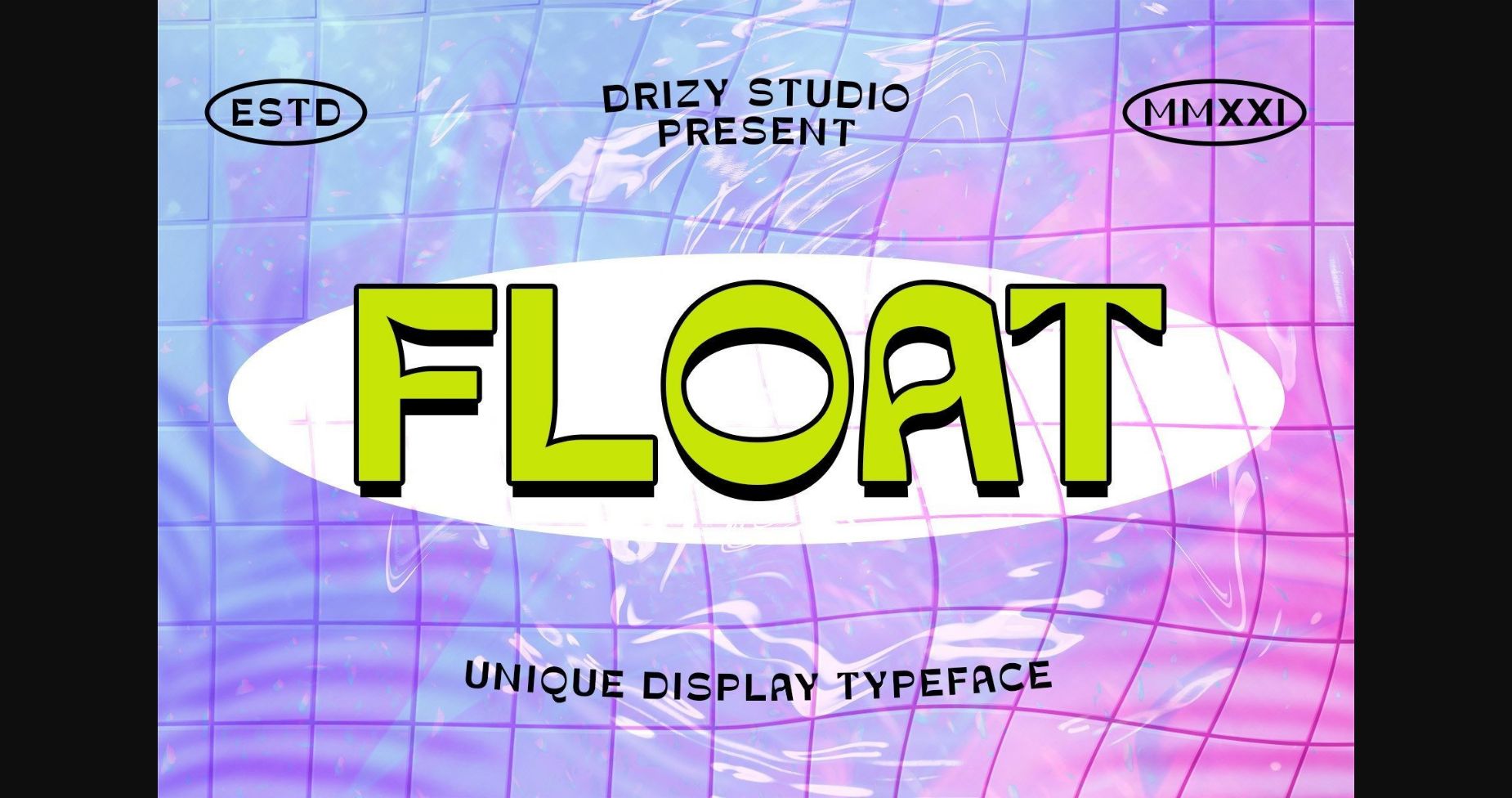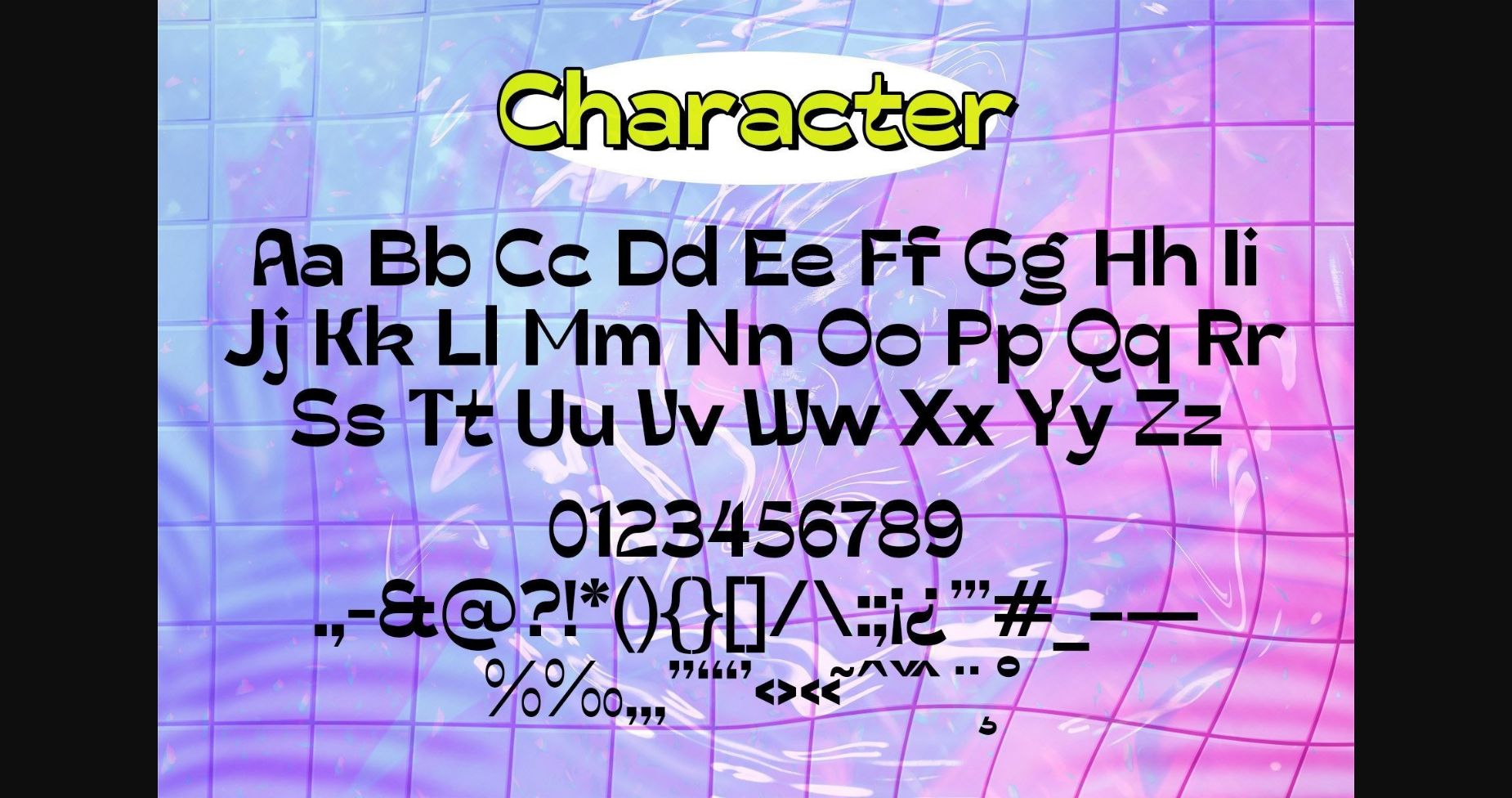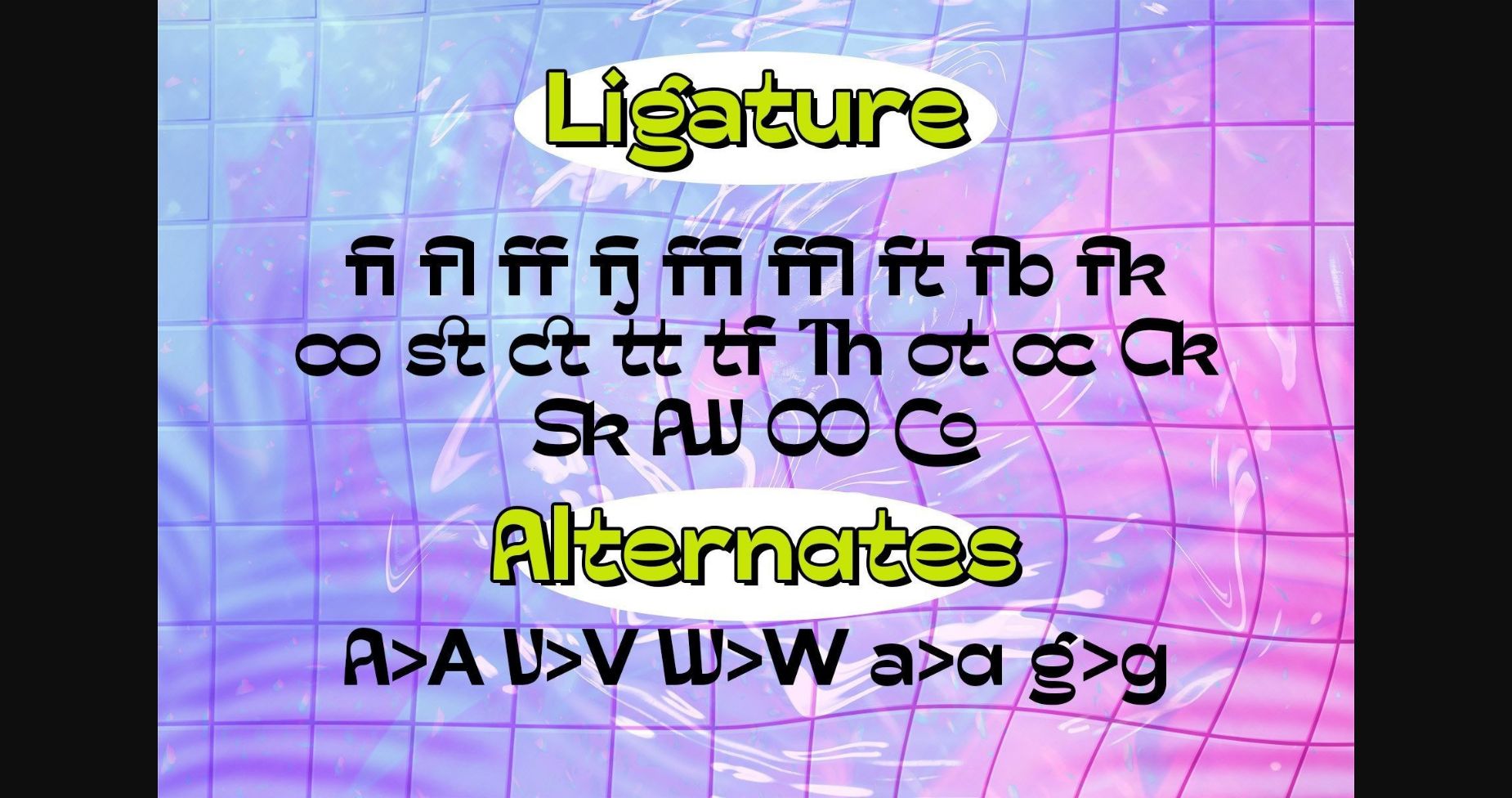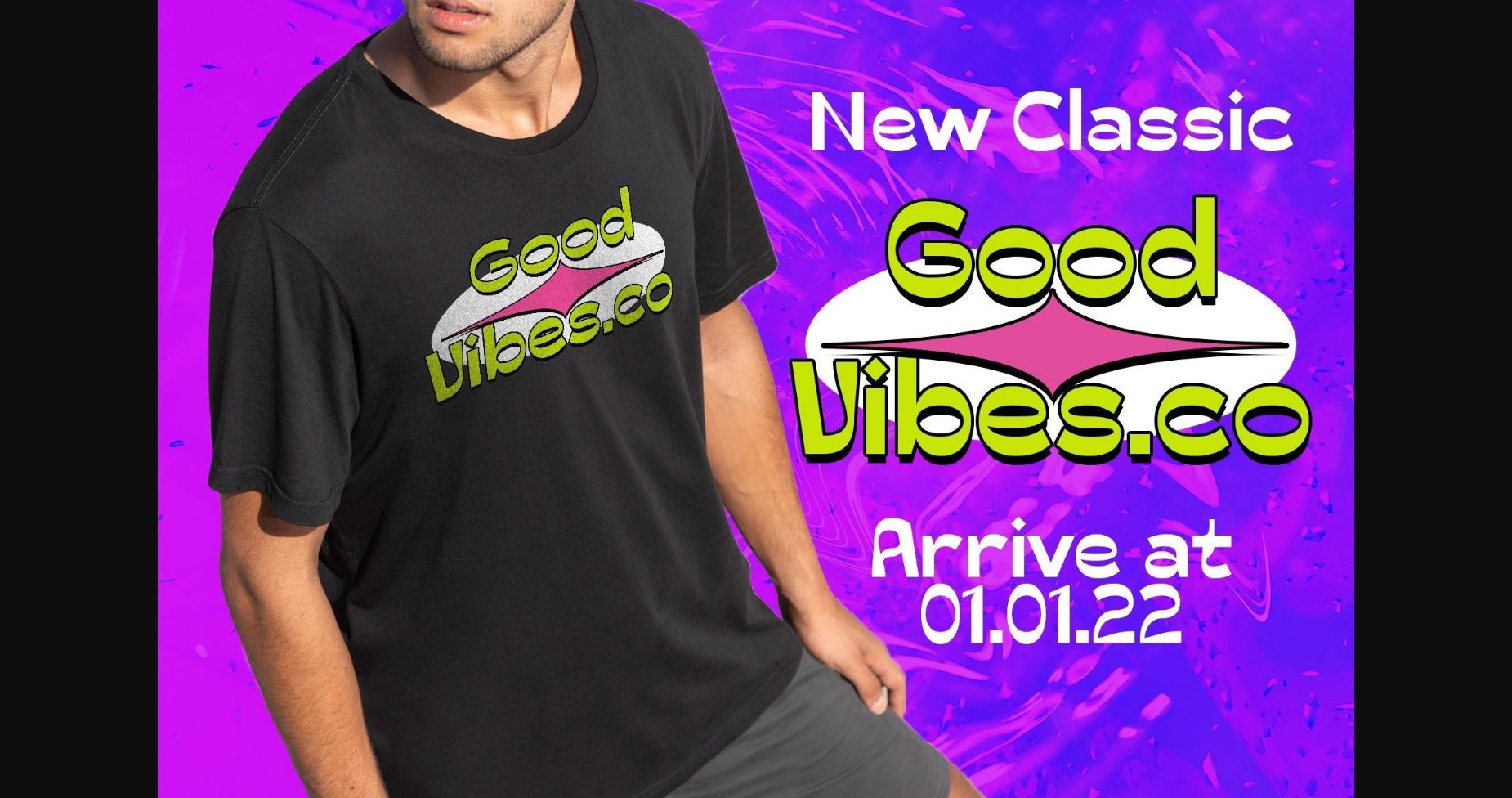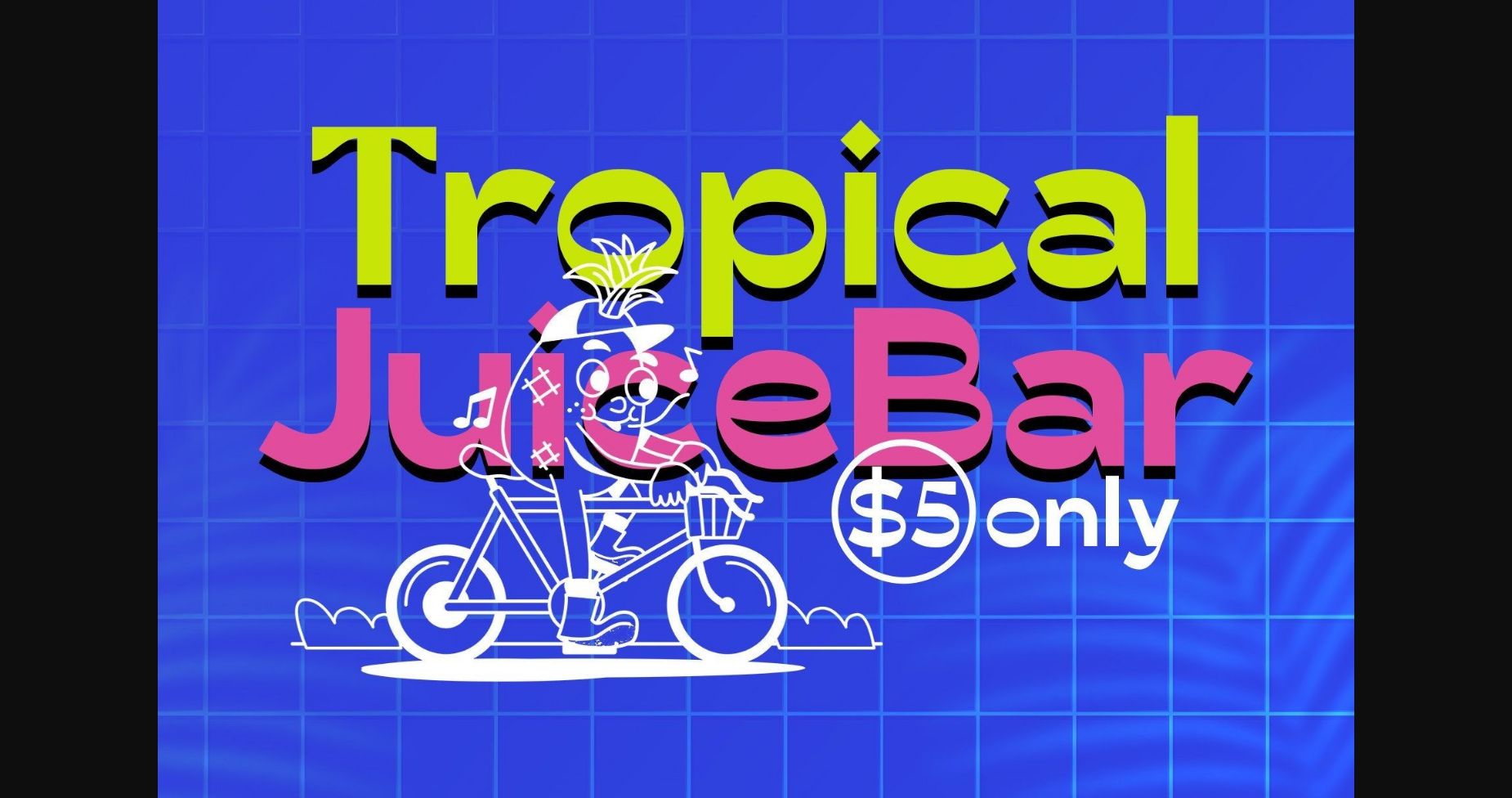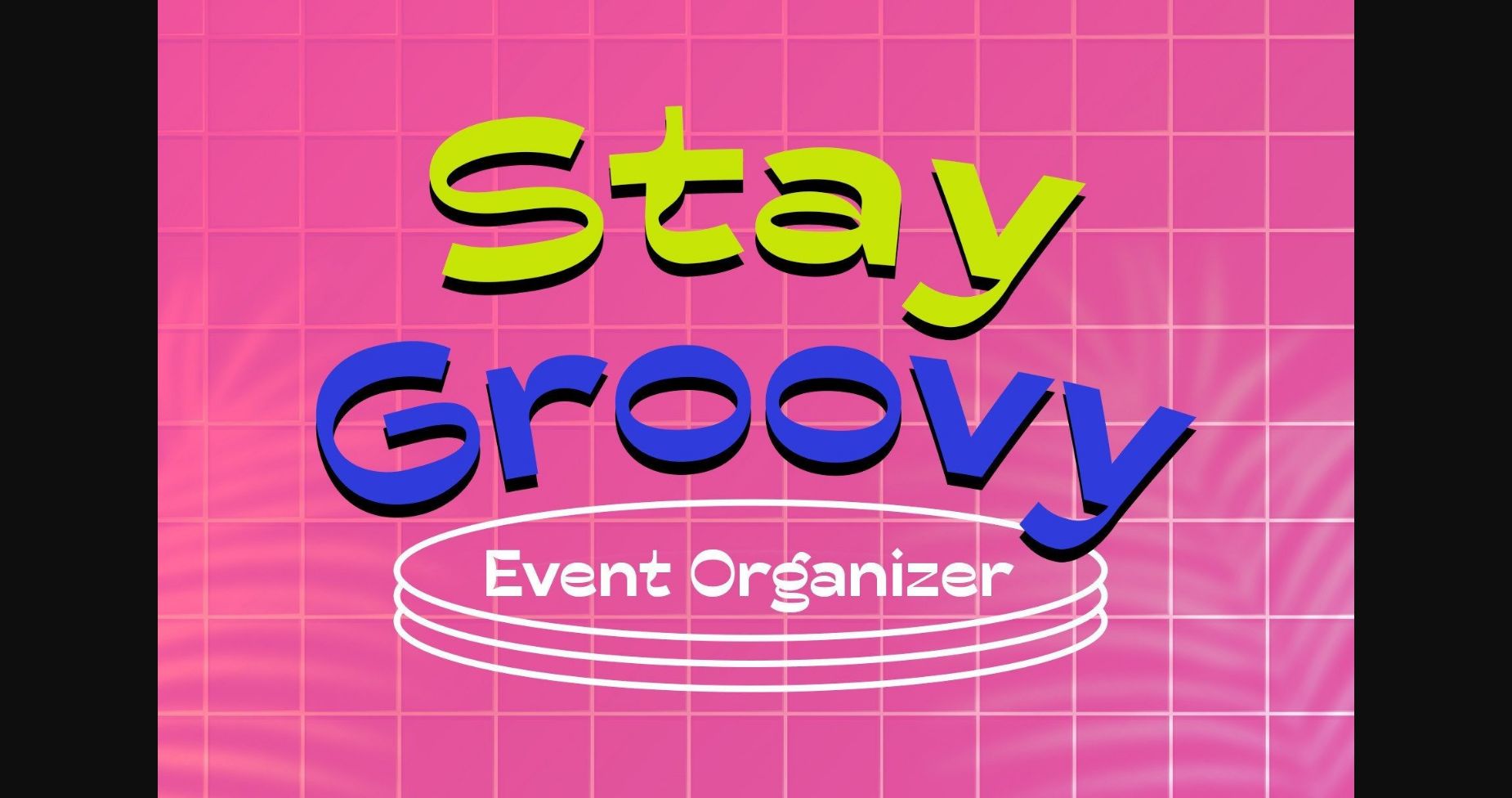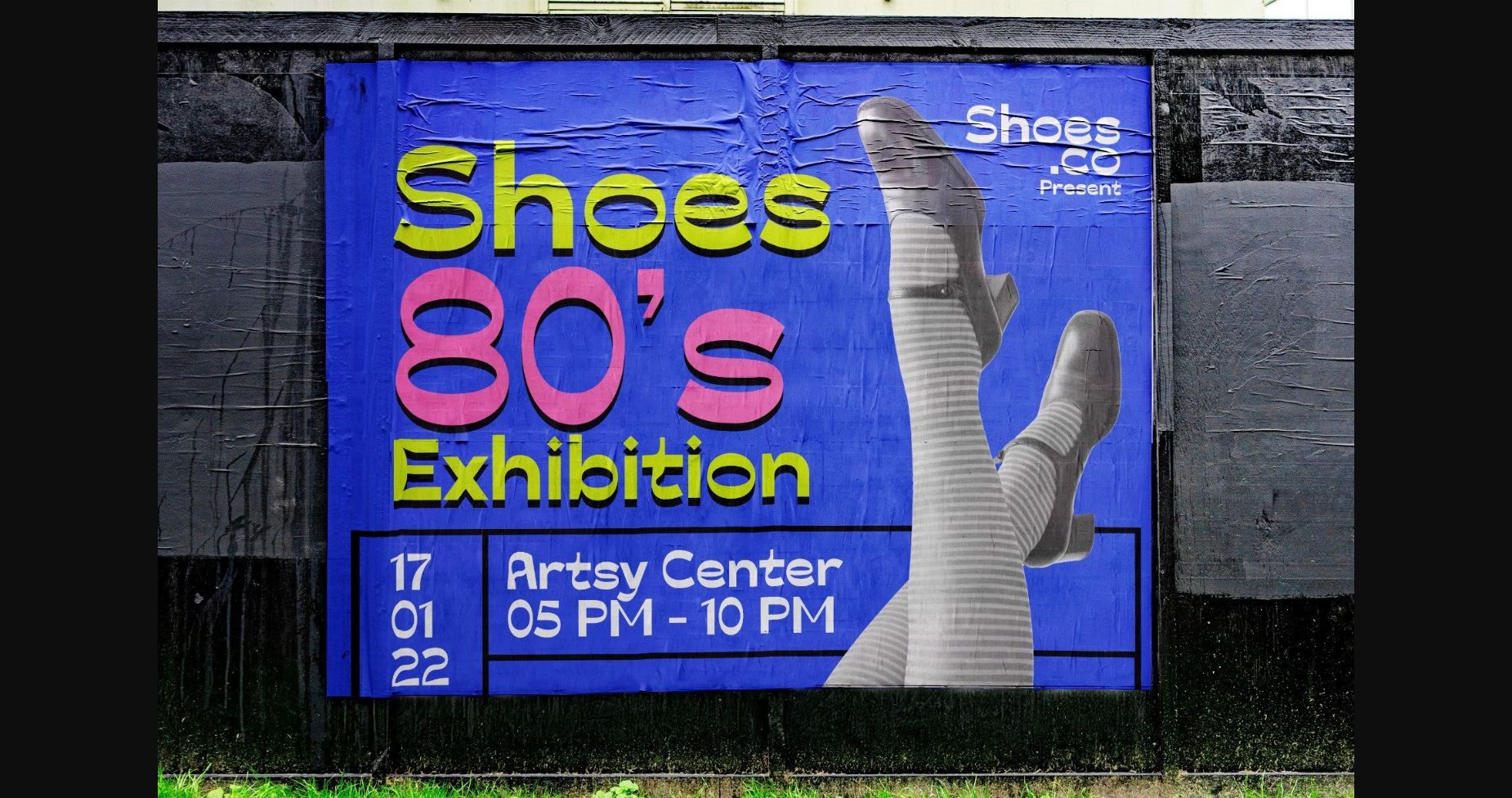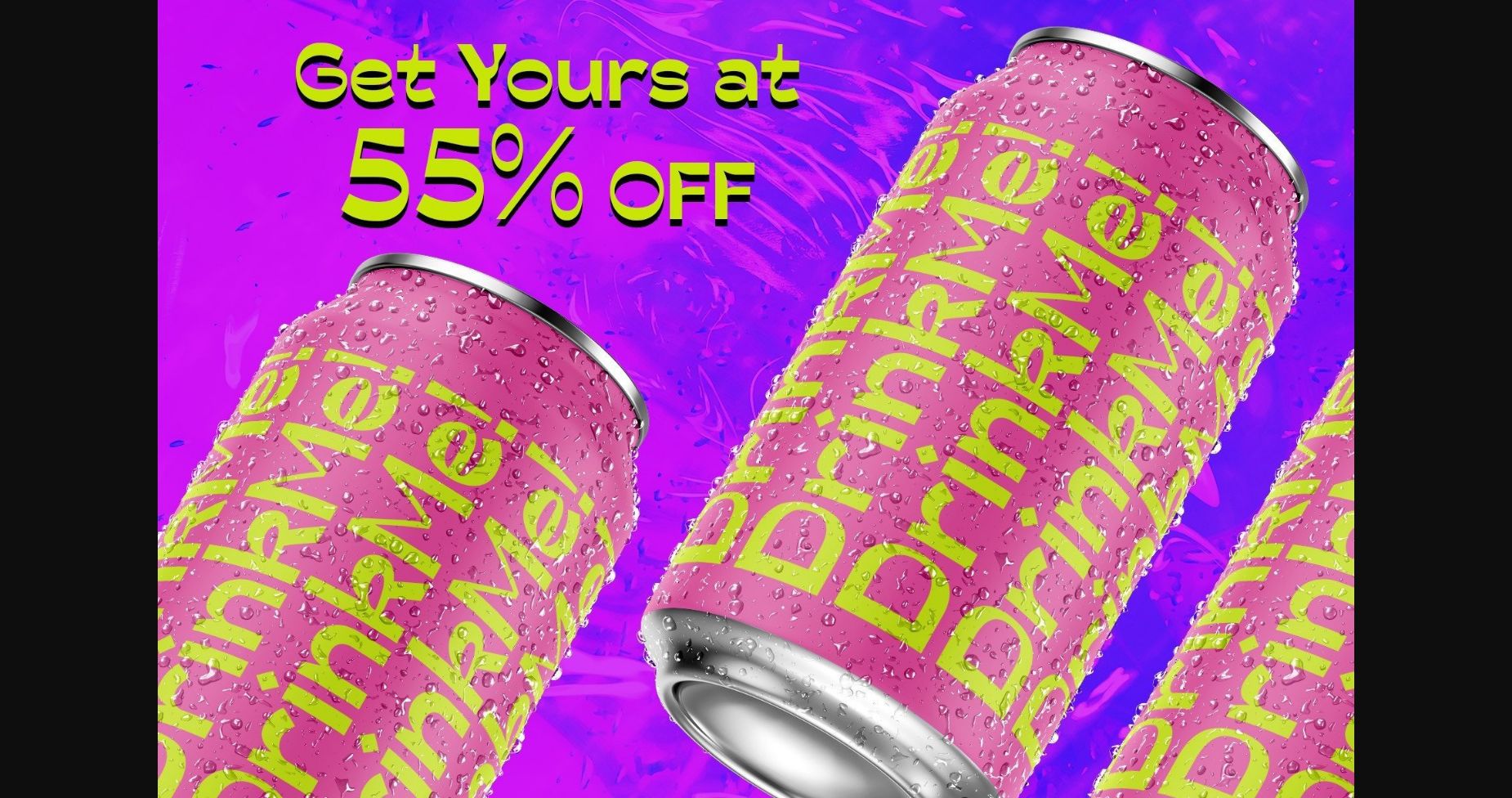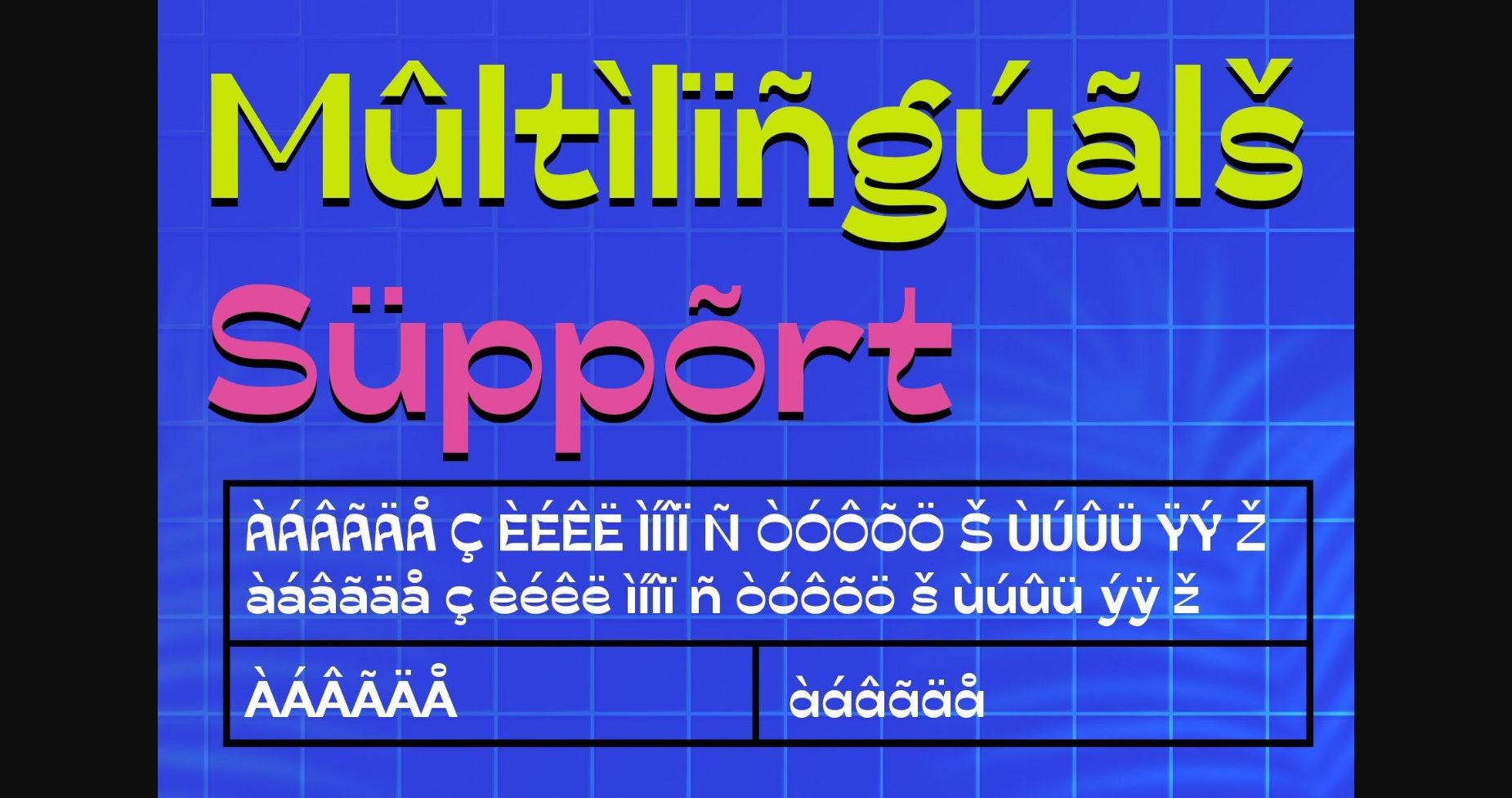
Float Font
About Float Font
Introducing Float! A new sans serif psychedelic font inspired by 80s graphic designs. Float is great for creating eye-catching headlines, and logos, applicable for any type of graphic design web, print, motion graphics, and perfect for t-shirts and other items.